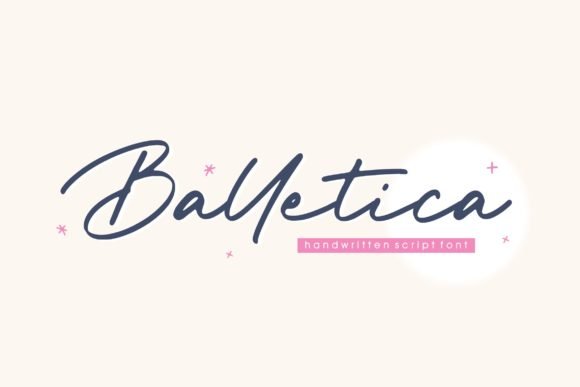
Enter the Balletica Script Font, a chic and refined script font that embodies sophistication and elegance. Its stylish alternates and ligatures make it the perfect match for any project that requires a touch of class. Whether you’re a seasoned designer or just starting out, the Balletica Script Font is a valuable addition to your toolkit, offering endless possibilities for creativity and self-expression.
Balletica Script Font Key Features
- Font Family: Balletica Script, a beautiful and elegant script font
- Unique Characteristics: Features flowing connections, elegant swashes, and beautiful ligatures
Balletica Script Font Review
As a designer, I had the opportunity to work with the Balletica Script Font, and I must say it’s a beautiful addition to any project. Here’s my honest review:
- Unique and elegant design: Balletica Script Font has a distinctive, classic feel that’s perfect for luxury branding, weddings, and other high-end projects.
- High-quality glyphs: The font’s characters are well-crafted and smooth, making it a joy to read and use.
- Good for long text: Despite its script nature, Balletica Script Font is surprisingly legible for longer blocks of text, making it a great choice for websites, magazines, and other publications.
- Not ideal for small text: While Balletica Script Font is legible for long text, it may not be the best choice for smaller font sizes, where the script style can become too decorative and hard to read.
- Limited language support: Some languages may not be fully supported by the font, which could lead to issues with text rendering and character encoding.
Overall, I’m impressed with Balletica Script Font’s elegance and versatility. While it may have some limitations, it’s a great choice for designers looking to add a touch of sophistication to their projects.
Tips for Getting the Most Out of Balletica Script
Use Balletica Script for titles, headings, and quotes to add a touch of elegance to your designs.
Pair Balletica Script with a serif font for a classic look or with a sans-serif font for a modern look.
Experiment with different font sizes and colors to create a visually appealing contrast.
Balletica Script is perfect for:
Alternatives to Balletica Script Font
Abril Fatface is a luxurious, elegant script font that is perfect for creating high-end branding and advertising materials. It features intricate details and a classic feel that is reminiscent of traditional calligraphy. Unlike Balletica Script Font, Abril Fatface has a more dramatic and elaborate look, making it ideal for use in high-end fashion, luxury goods, and fine dining.
Carolyna Pro is a modern, sophisticated script font that is perfect for creating stylish and elegant designs. It features a flowing, cursive feel that is both feminine and refined. Unlike Balletica Script Font, Carolyna Pro has a more contemporary look and feel, making it ideal for use in fashion, beauty, and lifestyle branding.
Playfair Display is a luxurious, high-end script font that is perfect for creating elegant and sophisticated designs. It features intricate details and a classic feel that is reminiscent of traditional calligraphy. Unlike Balletica Script Font, Playfair Display has a more ornate and elaborate look, making it ideal for use in high-end fashion, luxury goods, and fine dining.